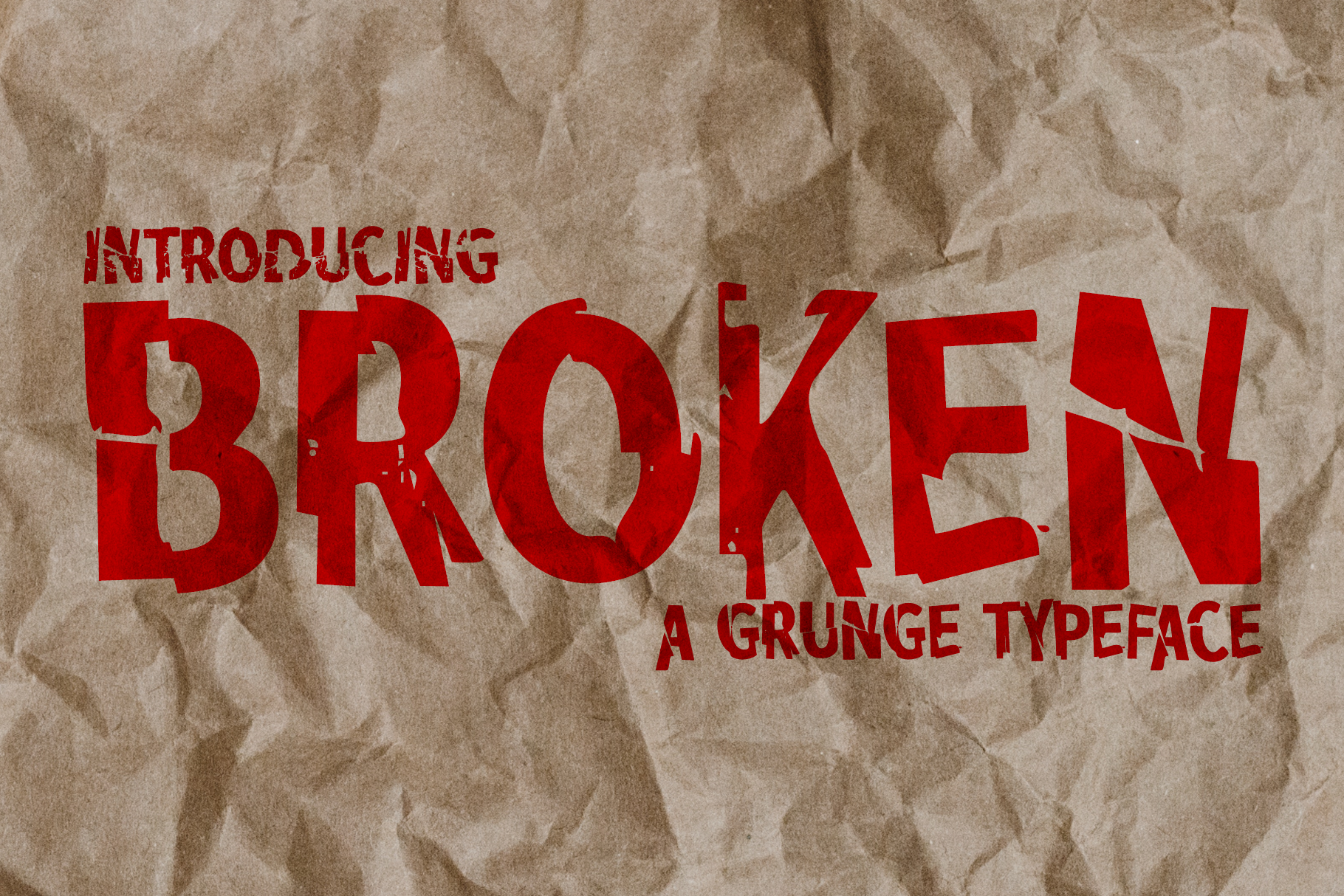
Broken – A Grunge Typeface
Meet Broken, a raw and unapologetic grunge typeface built for rebellion. This font isn’t just distressed—it’s wrecked, shattered, and torn apart to bring true underground energy to your designs. Perfect for punk rock posters, streetwear branding, zines, album covers, and anything that thrives in chaos.
With two styles included, you get total creative control: ⚡ Regular – Distressed but legible, perfect for bold, gritty statements. ⚡ Destroyed – Torn, fractured, and barely holding together for ultimate grunge aesthetics.
🔥 Loud. Messy. Unpolished. Just the way it should be.